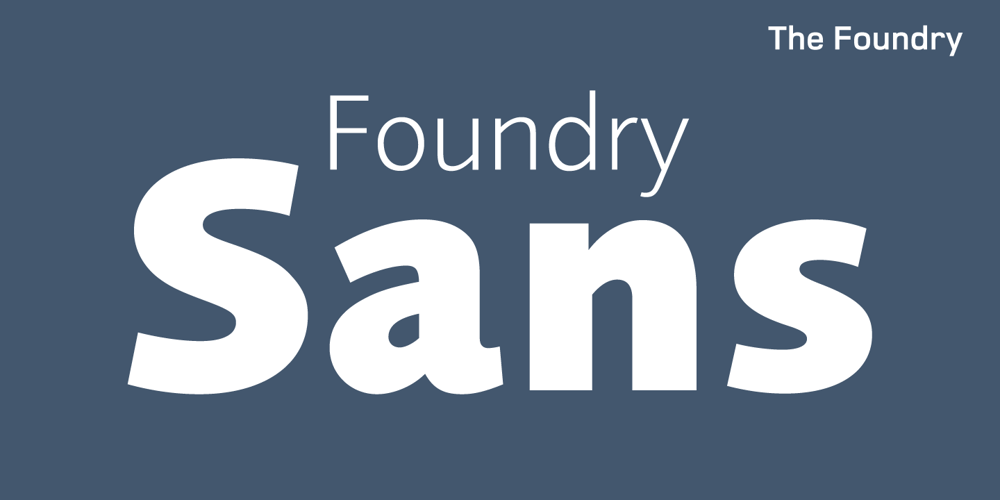
Foundry Sans
Foundry Sans font
Foundry Sans Font Family was designed by Freda Sack, David Quay, Stuart De Rozario and published by The Foundry. Foundry Sans contains 9 styles and family package options. This humanistic sans serif design was inspired by a conversation that David Quay had with renowned type designer Hans Meyer, during ATypI in Paris, 1989. Meyer revealed that Sabon, designed by Jan Tschichold, was the inspiration behind his Syntax font. This approach formed the basis for the design development of The Foundry’s very first sans serif typeface family; the inspiration for Foundry Sans comes from Stempel Garamond. Foundry Sans was the second typeface to be released for The Foundry typeface library in 1990.